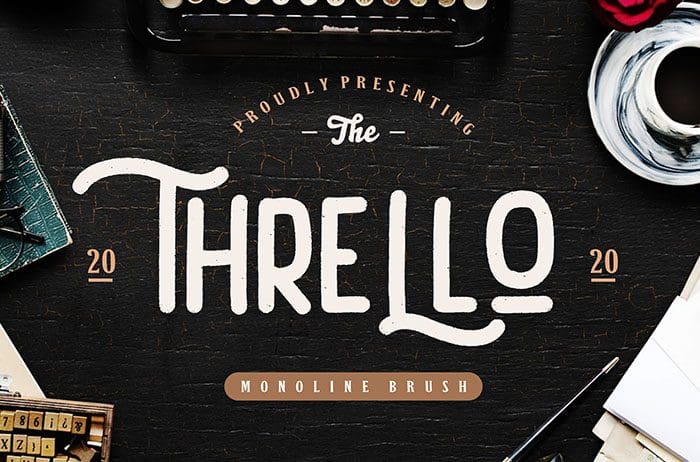
Thrello Retro Font
Thrello Monoline is a retro font with brush effect and vintage & retro style will make your project looks amazing. Thanks to Creatype Studio for sharing this font! Take a look at this portfolio for more of his stunning fonts.